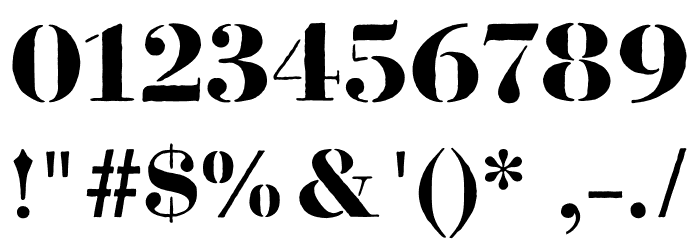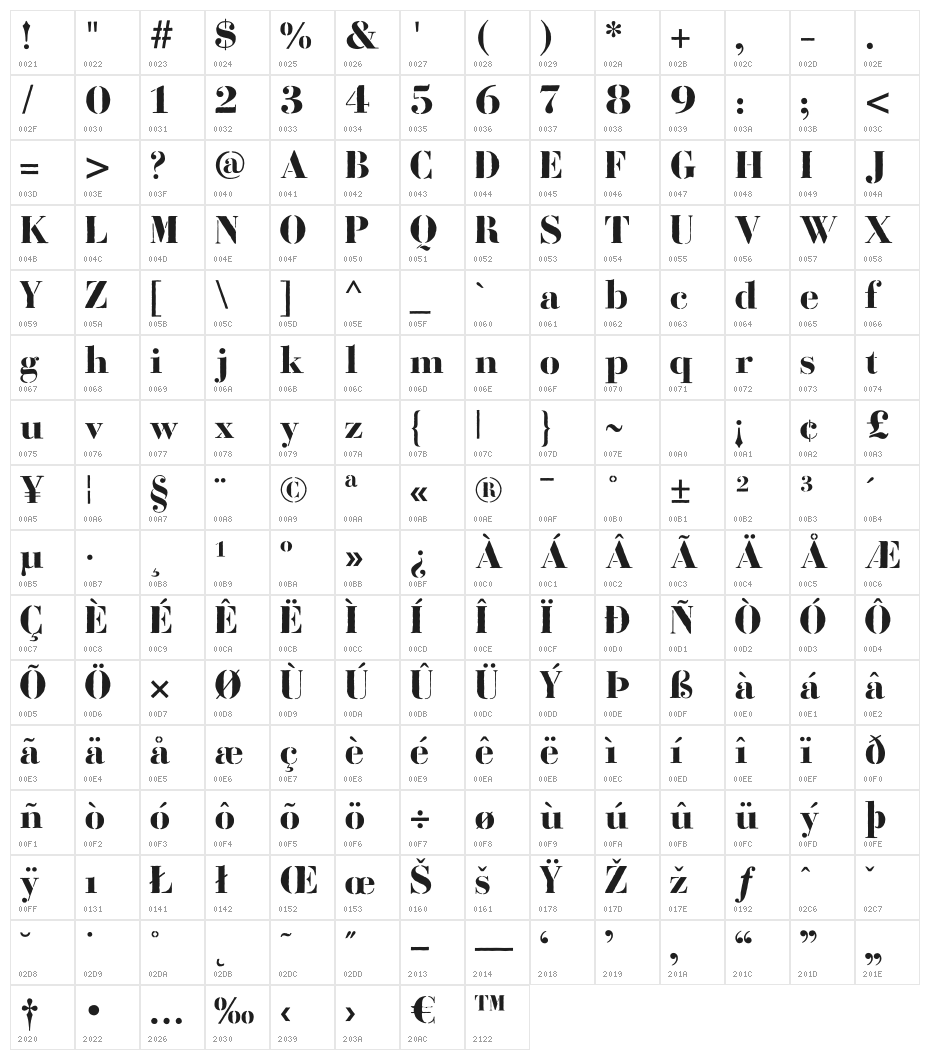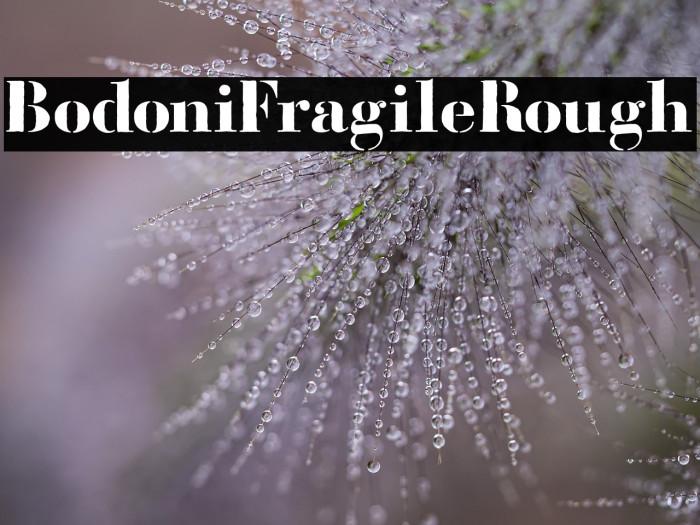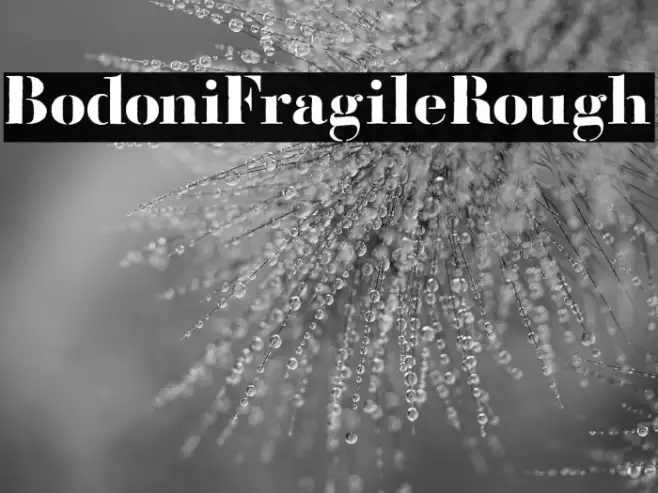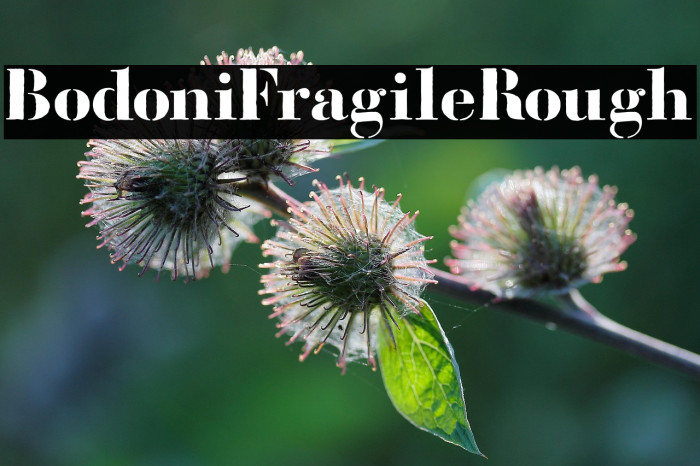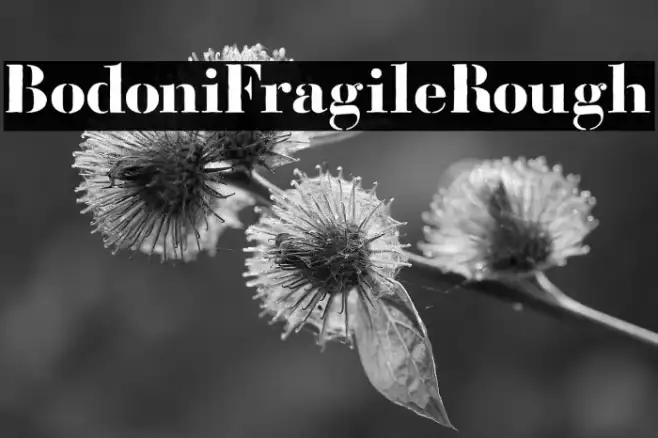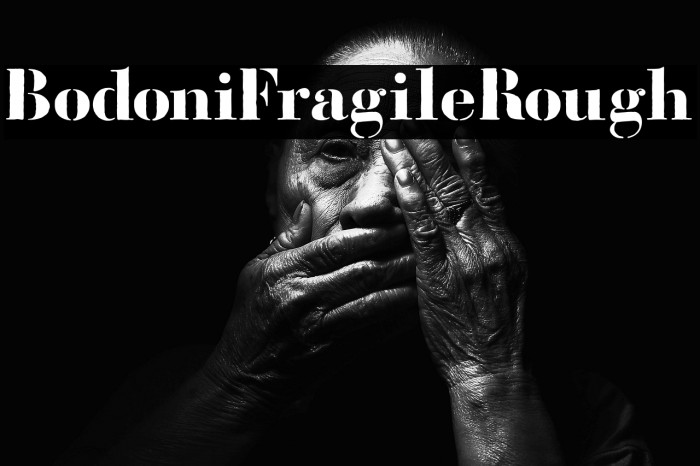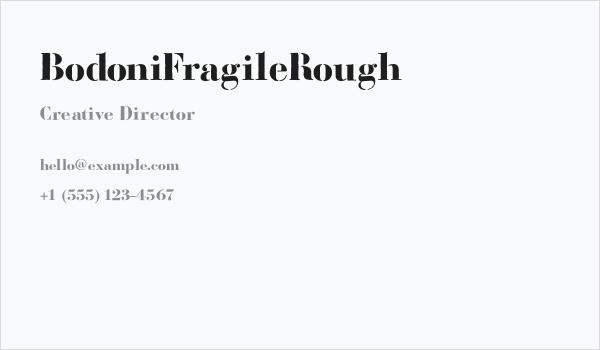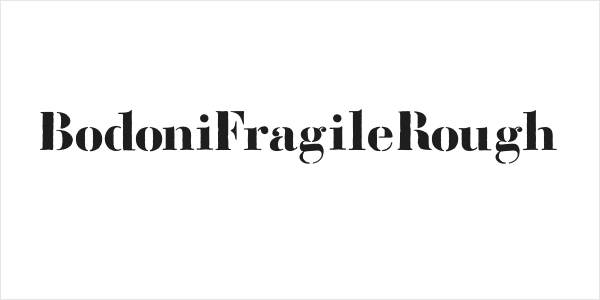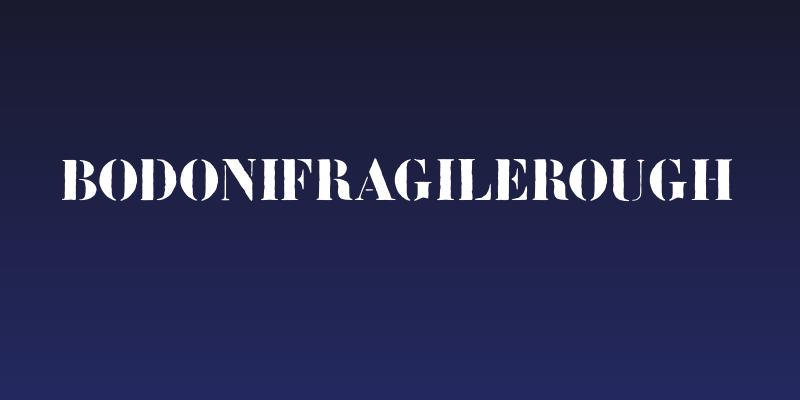
BodoniFragileRough Font
BodoniFragileRough Description
This font features a distinct and elegant style characterized by its high contrast between thick and thin strokes, giving it a sophisticated and classic appearance. The serifs are sharp and pronounced, adding to its formal and refined look. The uppercase letters are bold and commanding, while the lowercase letters maintain a graceful flow. The numerals are consistent with the overall design, offering a cohesive look across all characters. Special characters are well-integrated, maintaining the font's unique aesthetic. This font's rough texture adds a vintage and tactile quality, making it stand out in various design contexts.
| Proposed Projects | Ideal for luxury branding, editorial design, book covers, and high-end packaging. |